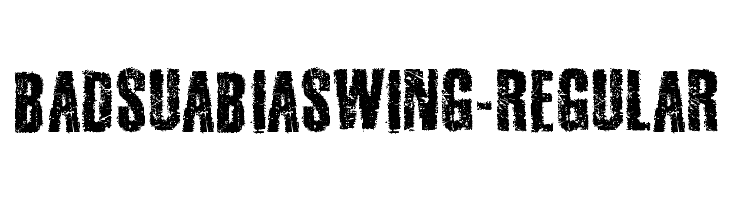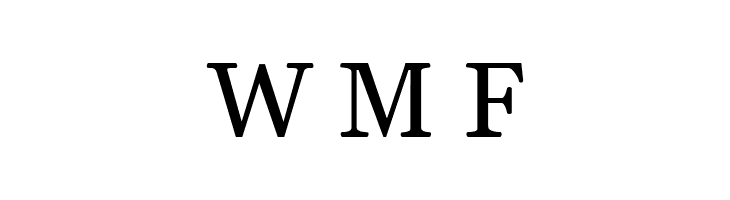
( Fonts by Bumbayo Font Fabrik )
A bold, distressed font with a vintage, textured appearance.
( Fonts by Dieter Schumacher )
A geometric, angular font with square letterforms and uniform line thickness.
( Fonts by www.DigitalDreamDesign.net )
A bold, geometric outline font with sharp angles and uniform thickness.
( Fonts by Masa Aska Sanurumi )
A bold, rounded font with a playful and friendly style.
A modern serif typeface with elegant, rounded serifs and excellent readability.
( Typodermic Fonts - Ray Larabie - www.typodermicfonts.com/ )
Bold, italicized font with a modern, dynamic style.
( Ilham Herry - ilhamherry.com )
A bold, modern serif font with a strong, impactful presence.
A modern, light, italic font with clean lines and a dynamic slant.